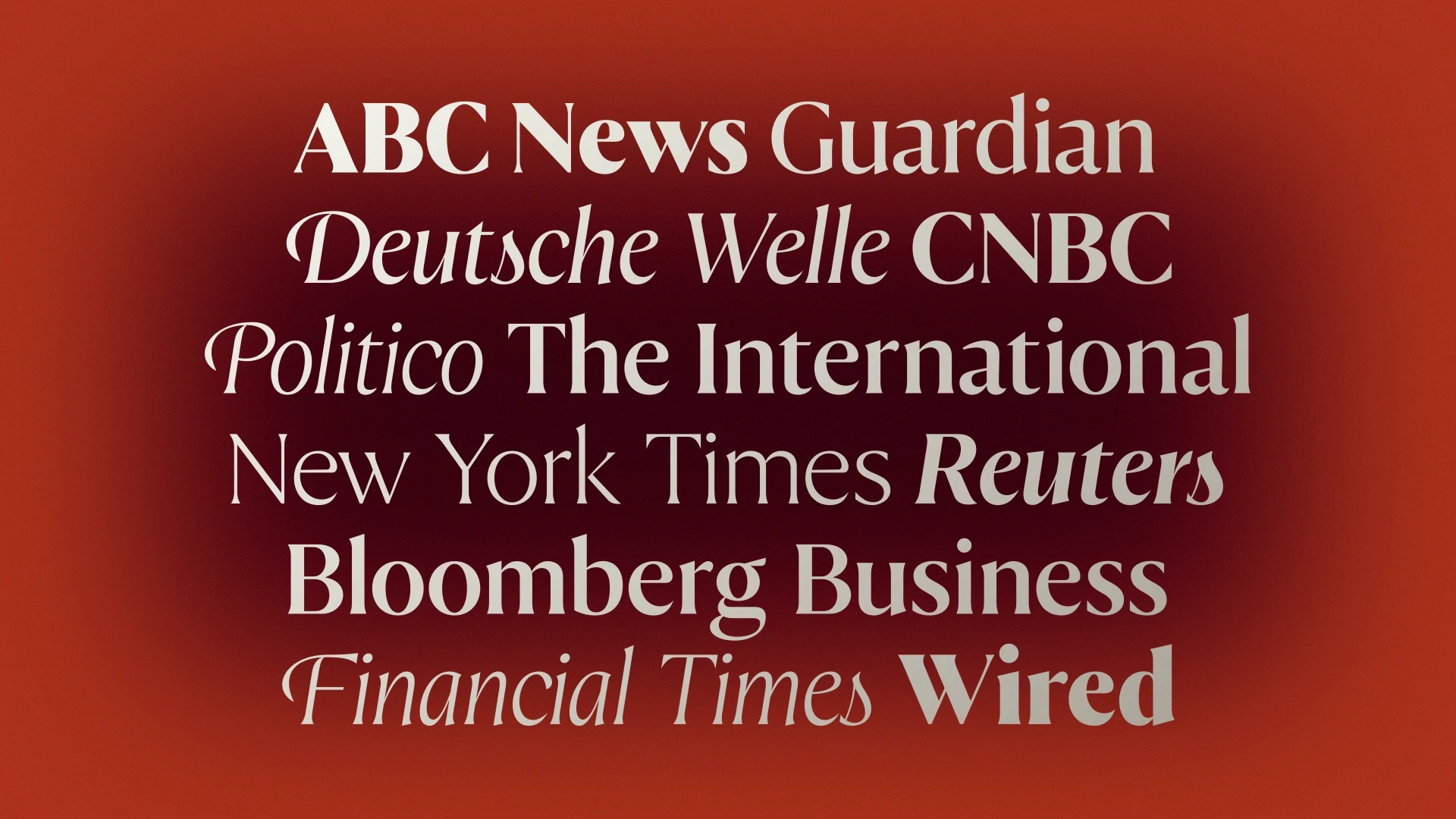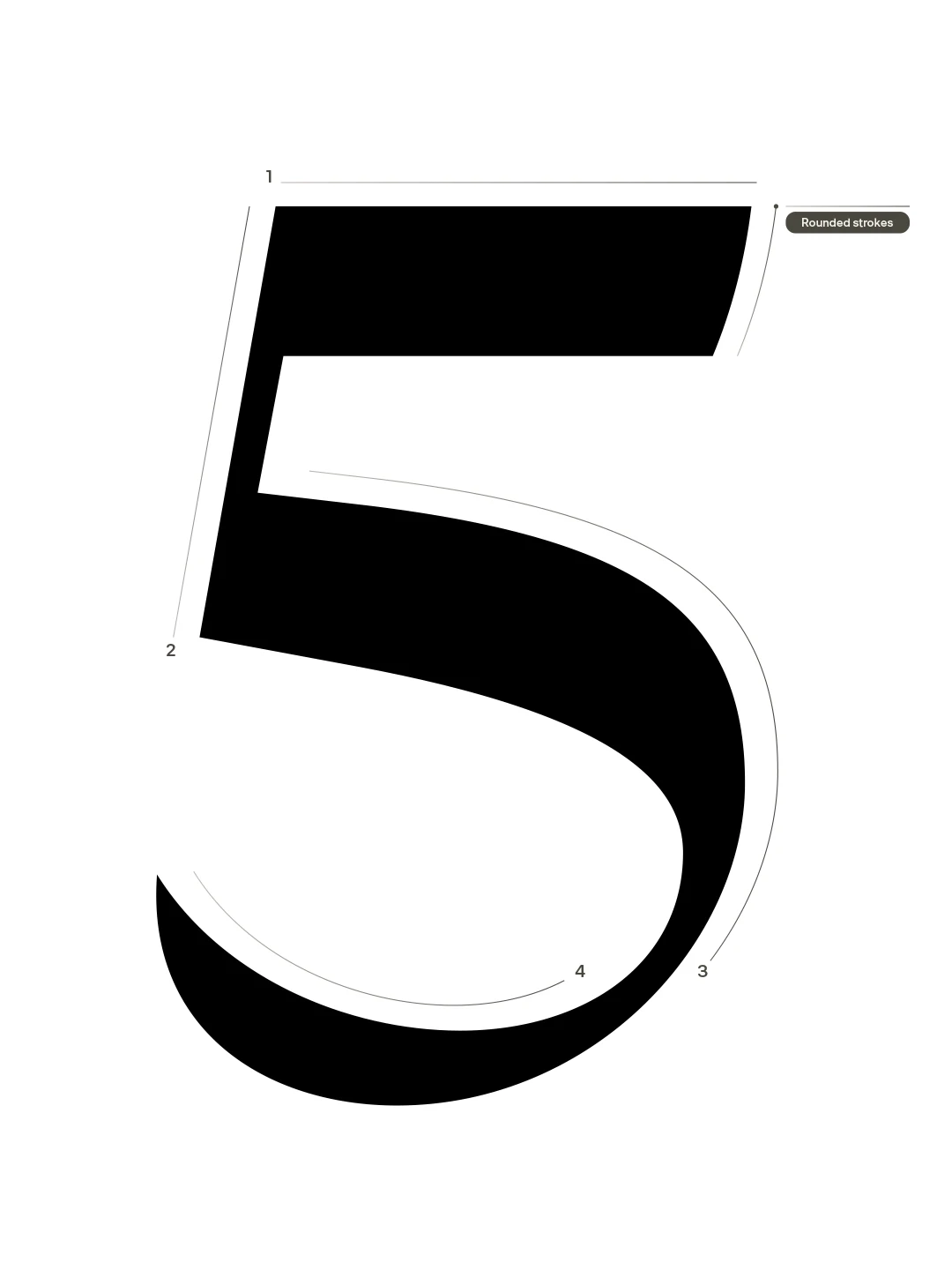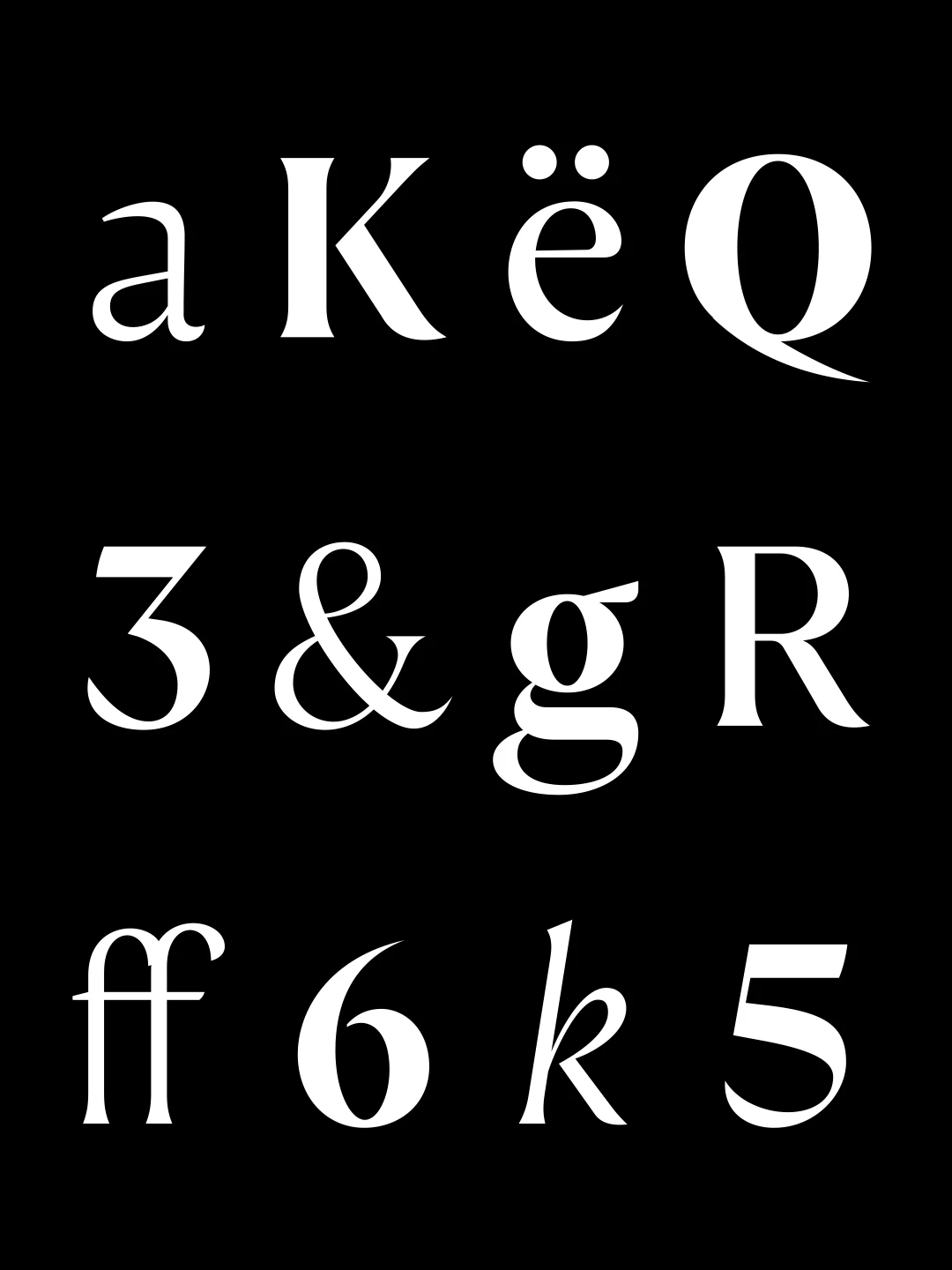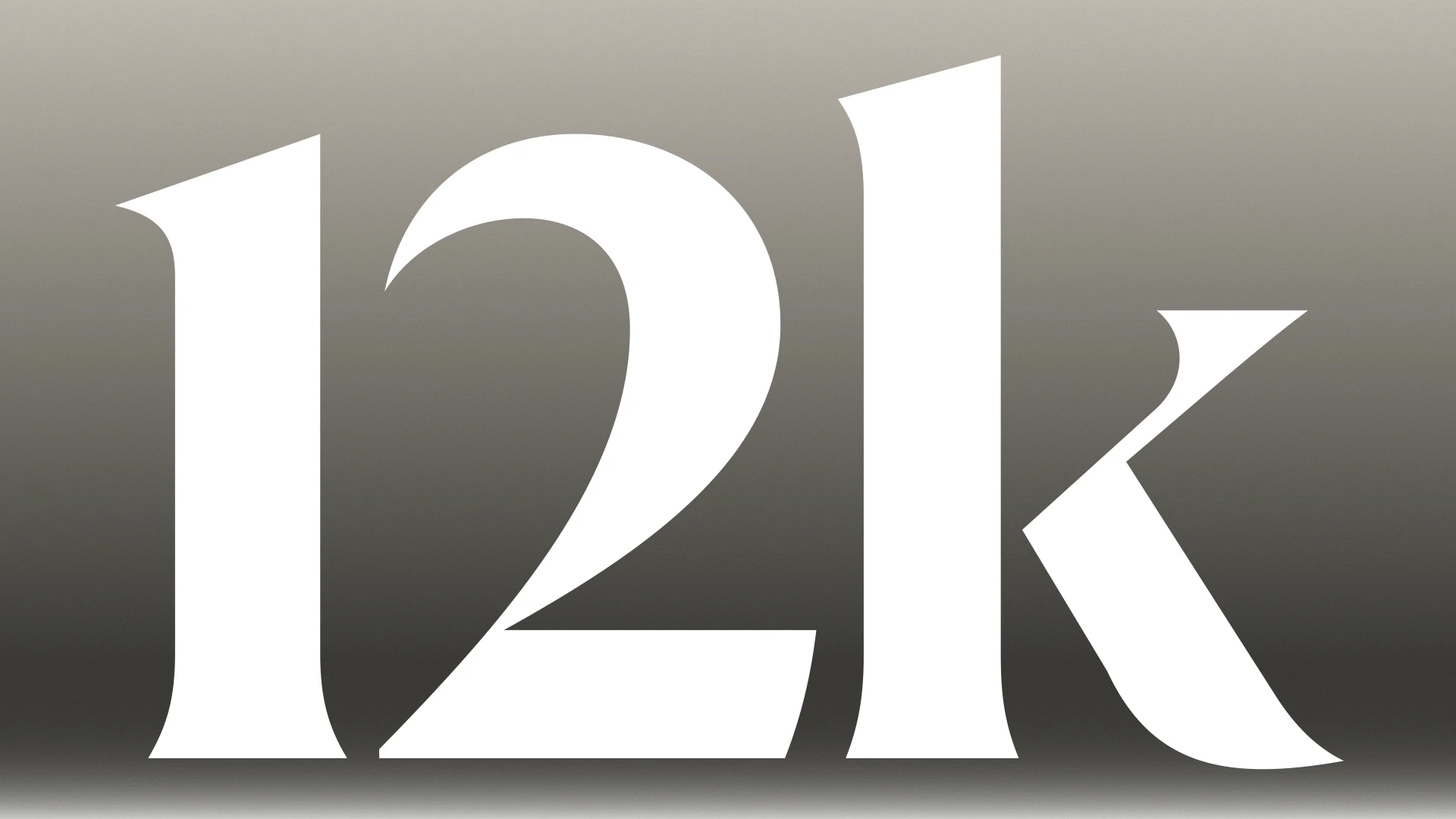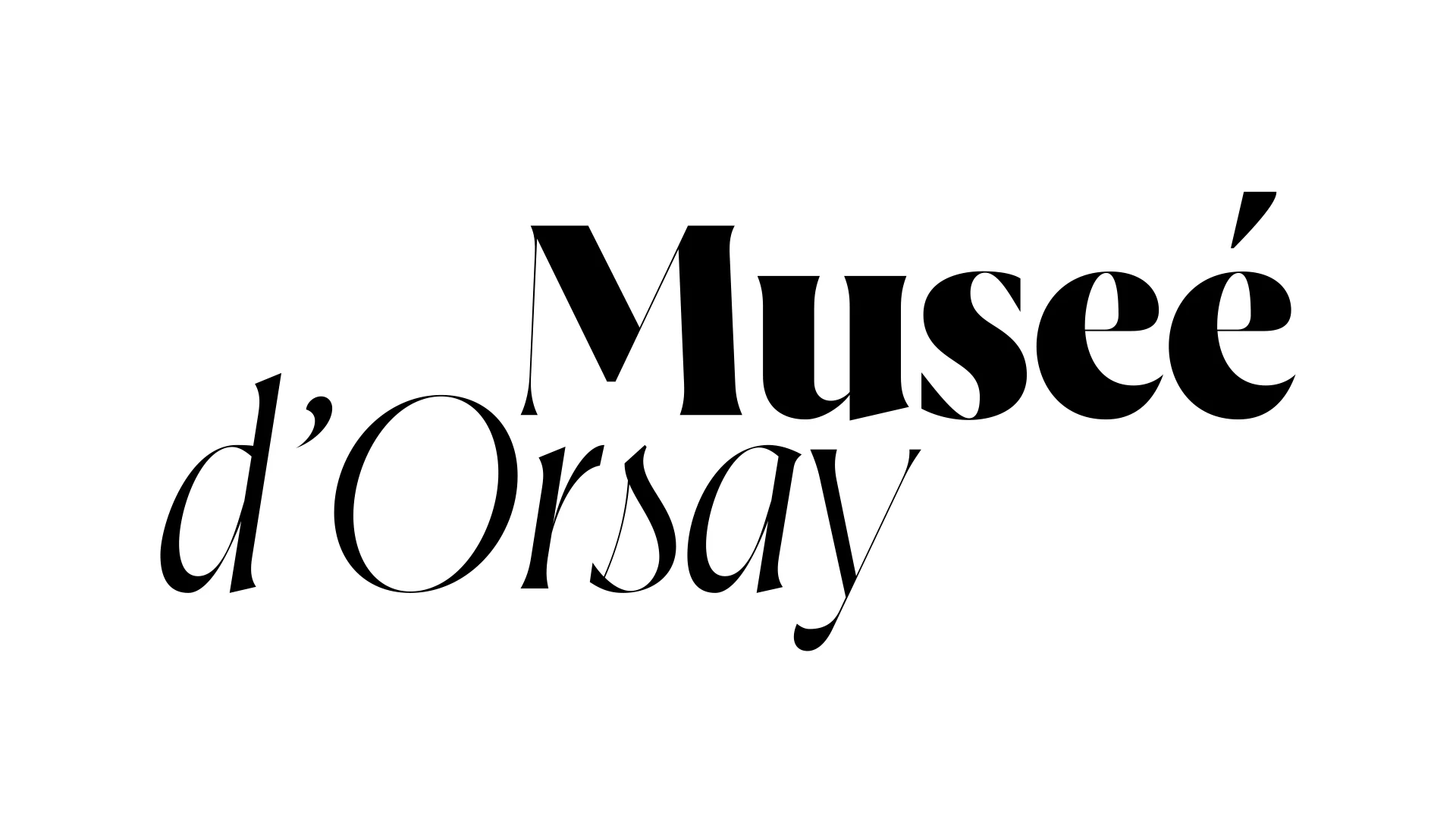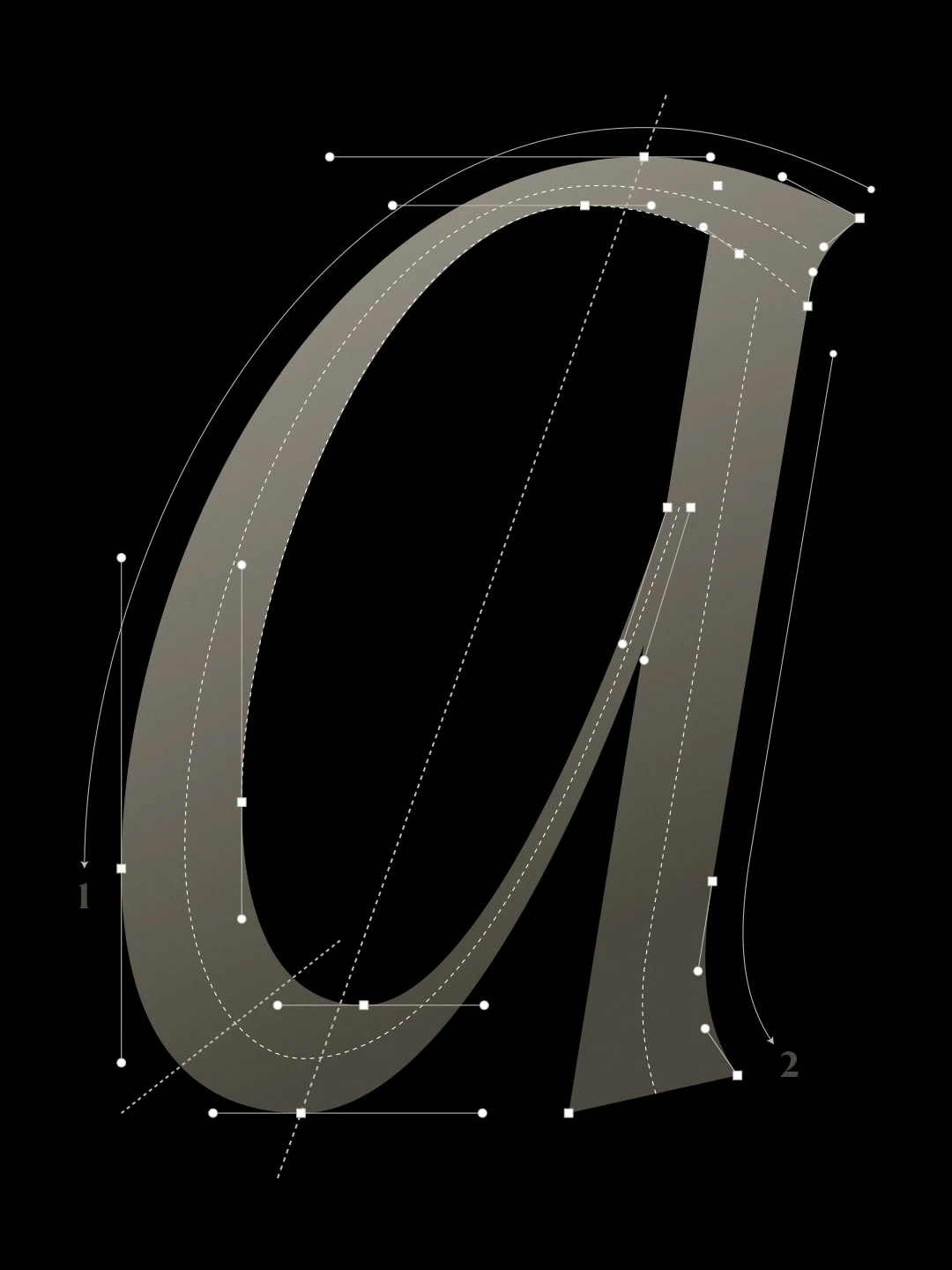
FH Total is a contemporary serif family shaped by the Dutch typographic tradition. Influenced by the refined work of Jan van Krimpen, it offers sharp serifs, open counters, and a controlled rhythm suited for editorial typography. The family includes FH Total Fine for headline sizes and FH Total Display for screen and subhead use, each tuned for clarity across media. Its italics depart from classical models, favouring expressive, purpose-built forms over convention.
Classification: Humanist Flare Serif